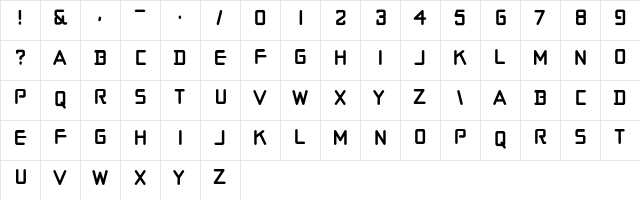
Moto Regular
Design Context for Moto Typeface
Moto offers clean, dependable letterforms without strong stylistic allegiance, making it a practical choice for designers who need flexibility.
Pro Tip: Pair Moto with a font of contrasting weight or personality to build a more expressive typographic hierarchy.